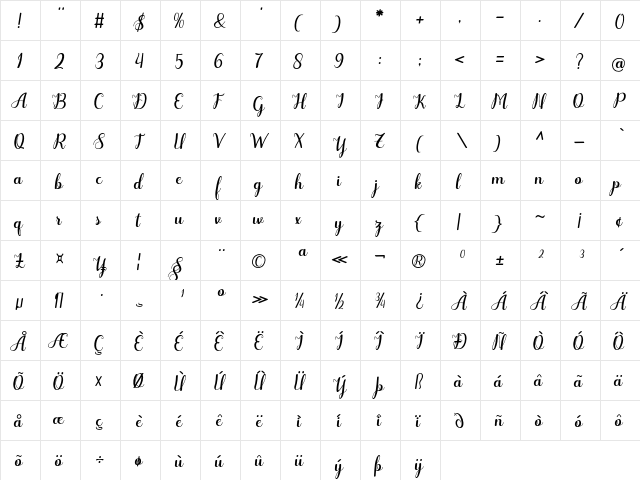
Odelette Alexe Crisna
Design Context for Odelette Typeface
Odelette is a composed and adaptable typeface that performs quietly and consistently across a wide range of design contexts.